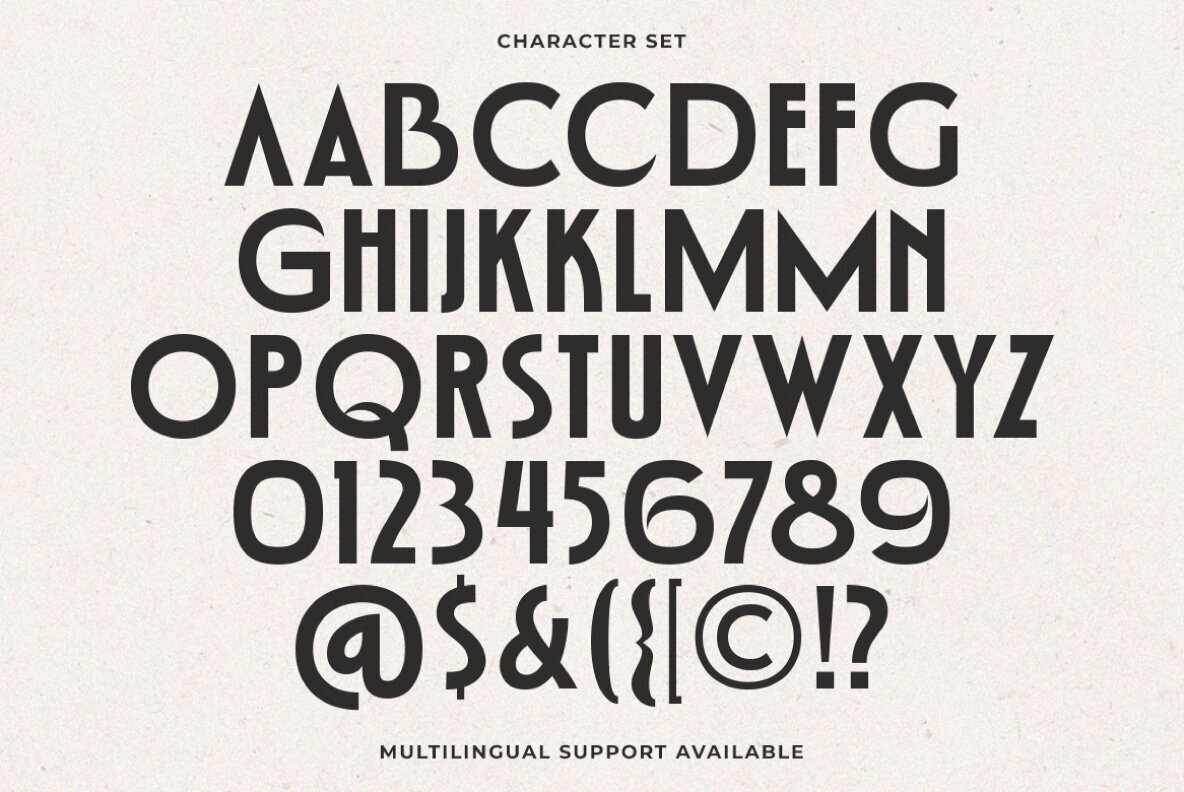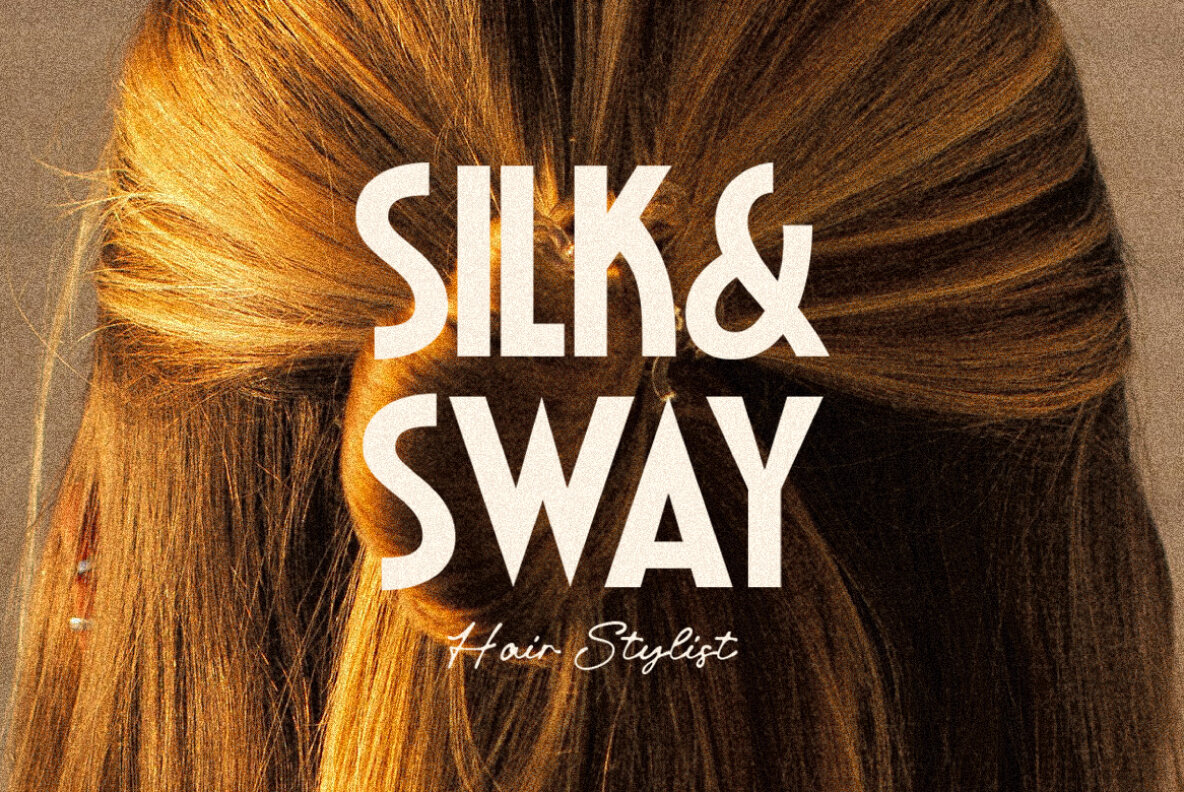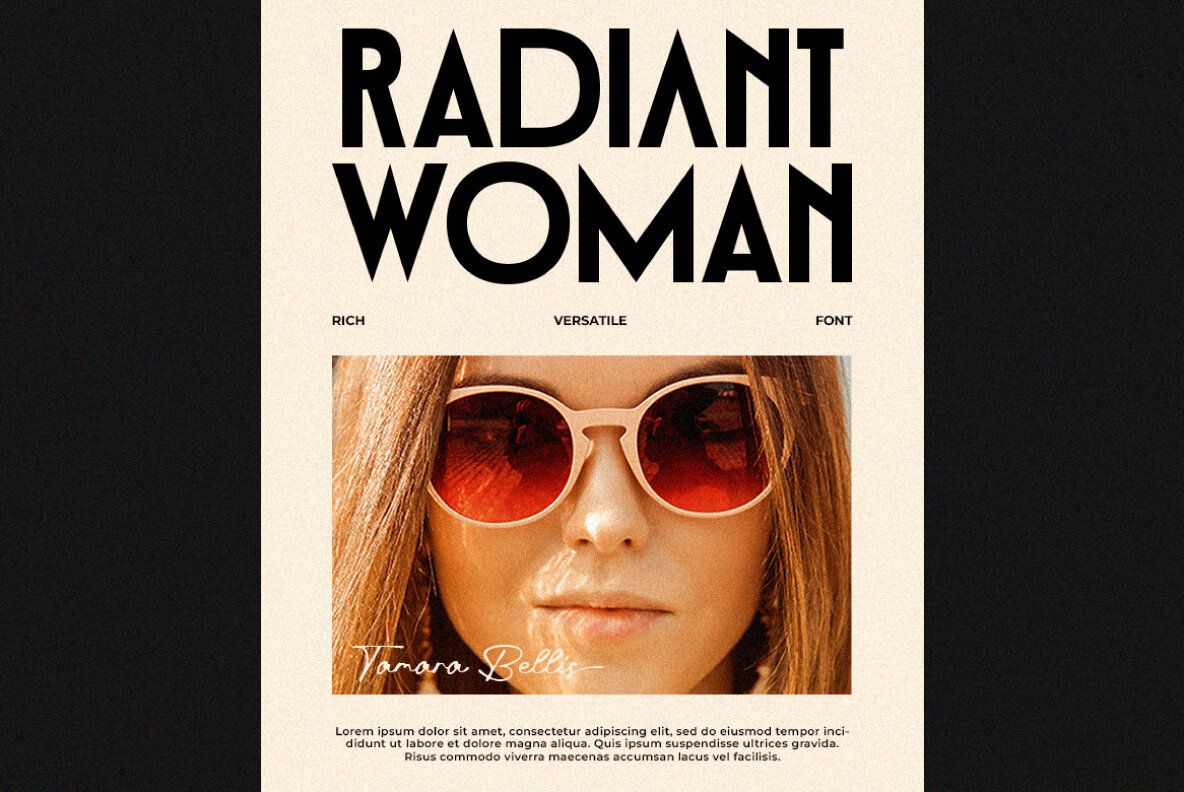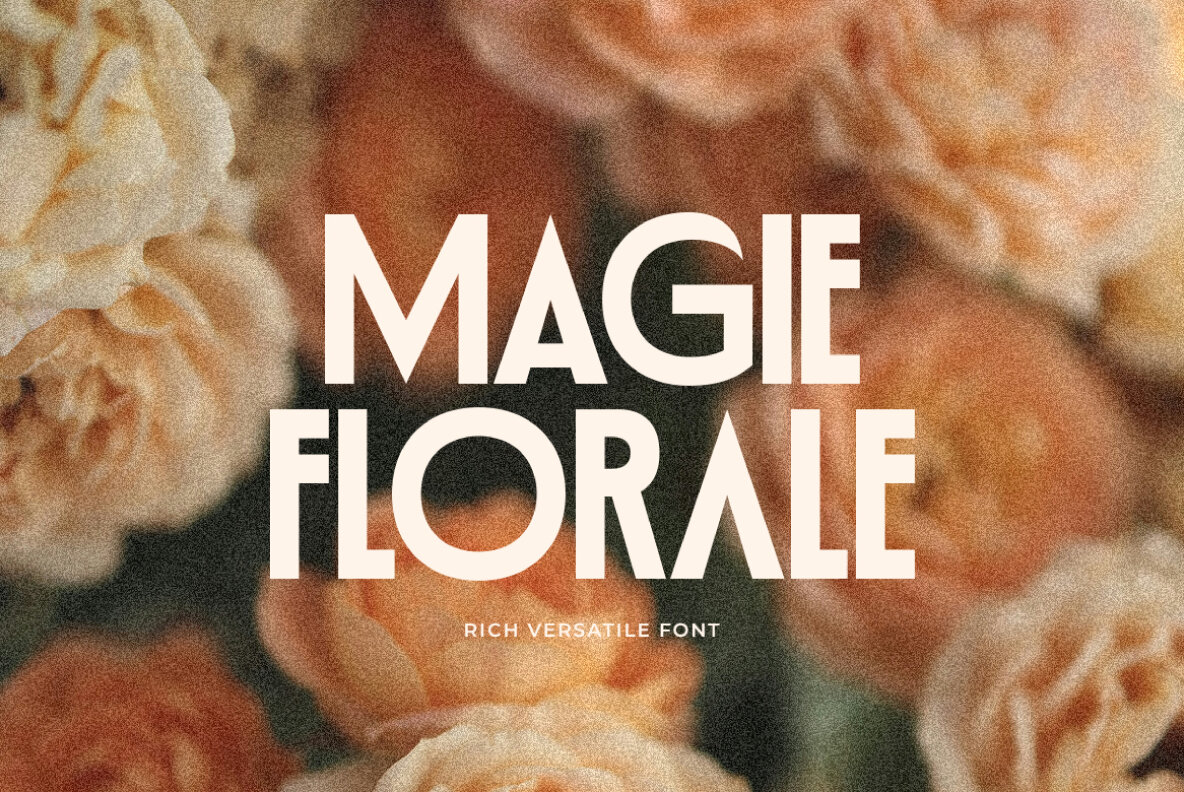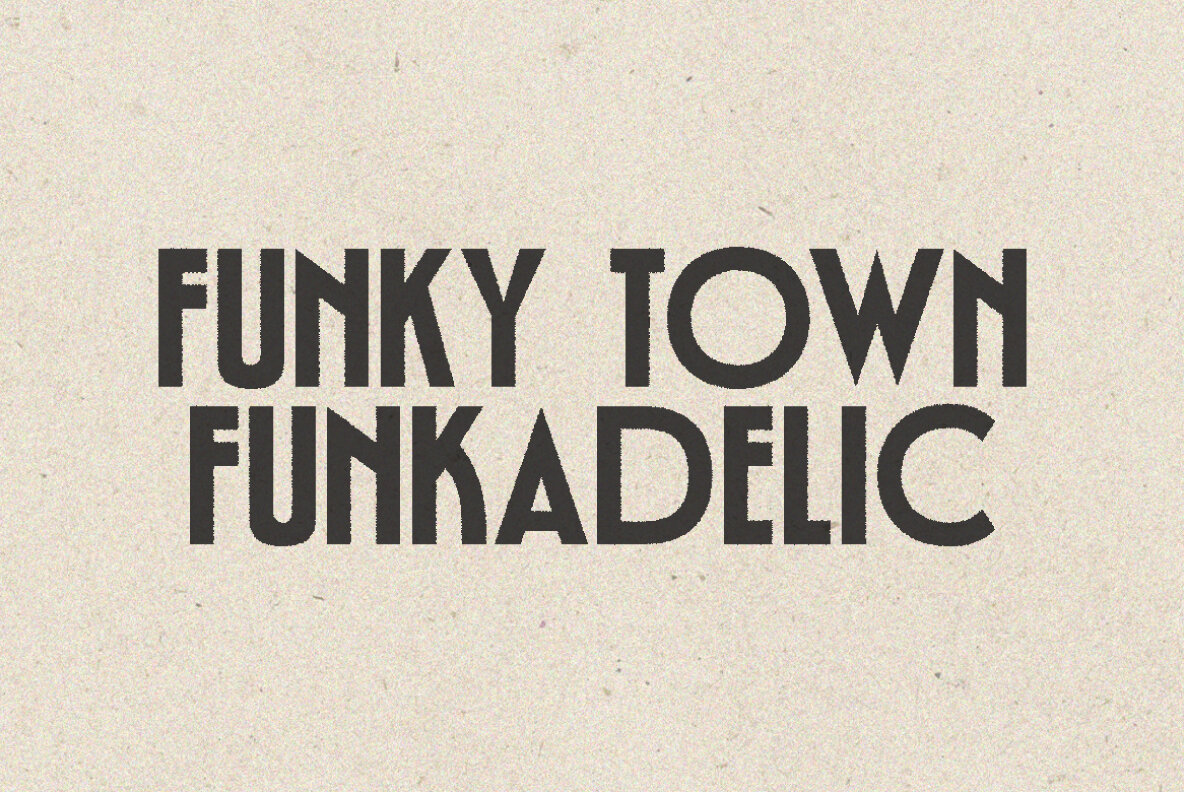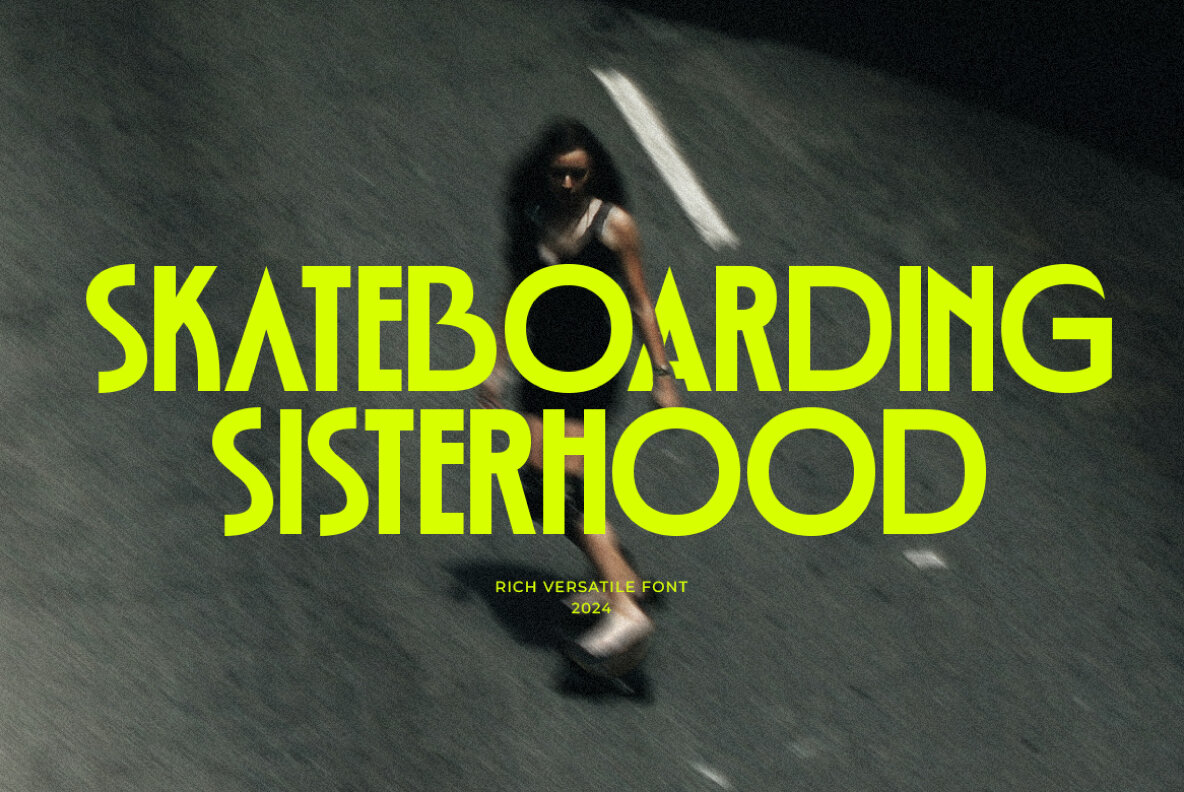
Rich Versatile Font
Rich Versatile Regular
A bold sans serif display font that makes your designs stand out. Designed to bring your designs from retro to modern themes together, it's still great. Very suitable for branding, poster and logo designs.